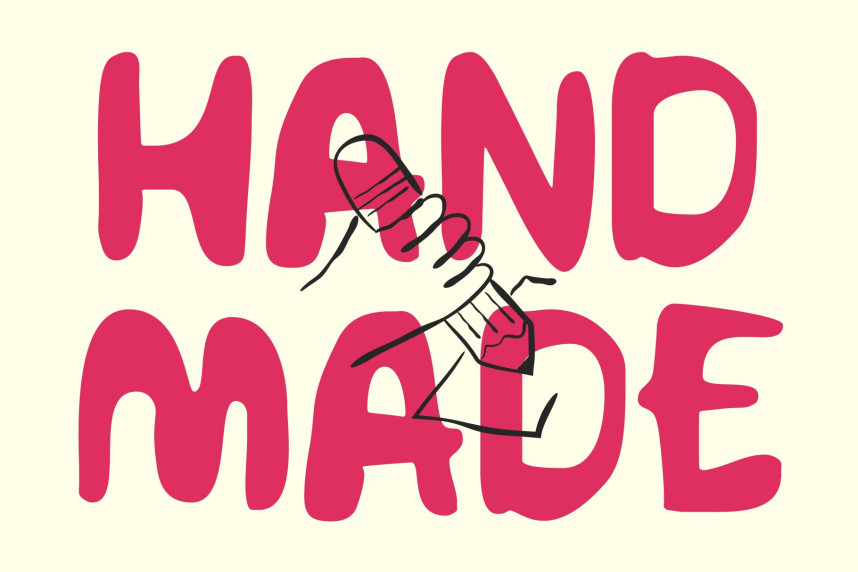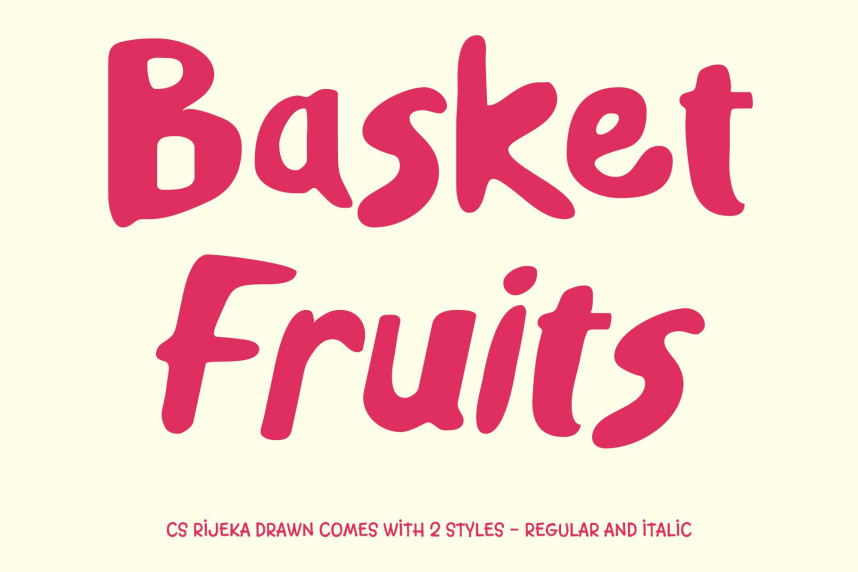
CS Rijeka Drawn Font
CS Rijeka Drawn Font – Playful Hand-Drawn Display Font Modern Display Font with Fun Energy. This is a playful, modern display font that brings charm and personality to any project. Its hand-drawn qualities give it a relaxed, approachable feel, making it perfect for designers looking to add warmth, creativity, and a unique human touch to their work.